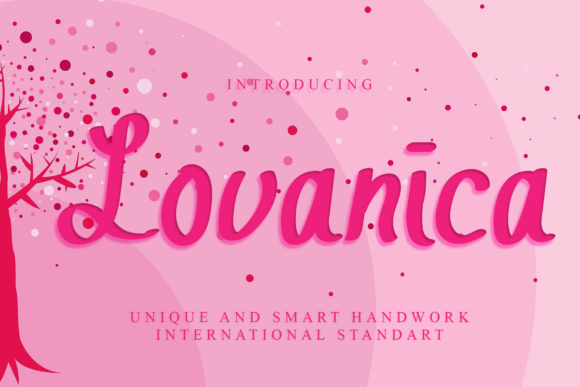
Take a voyage through the beautiful realm of calligraphy with Lovanica Font, a script masterpiece carefully crafted by giartstudios. Each flowing character of Lovanica Font dances and swirls, capturing the essence of passion and nostalgia. Its bold and casual style effortlessly stands out, demanding attention yet maintaining a disarming charm.
The essence of Lovanica Font lies in its ability to transform the ordinary into the extraordinary. Its unique letterforms, inspired by the handwritten notes of old, bring a touch of authenticity and warmth to any design. Its versatility knows no bounds, seamlessly blending into both classic and contemporary aesthetics.
Lovanica Font shines brightly against busy backgrounds, holding its own amidst the visual cacophony. It's the perfect choice for creating eye-catching headlines that speak volumes. Its presence as a standalone headline is equally captivating, adding a touch of elegance and sophistication to the design.
With Lovanica Font, you can unleash your creativity and explore new horizons in typography. Its bold and casual nature lends itself perfectly to a wide range of design projects. From logos and branding to social media posts and marketing campaigns, Lovanica Font will elevate your work to new heights.